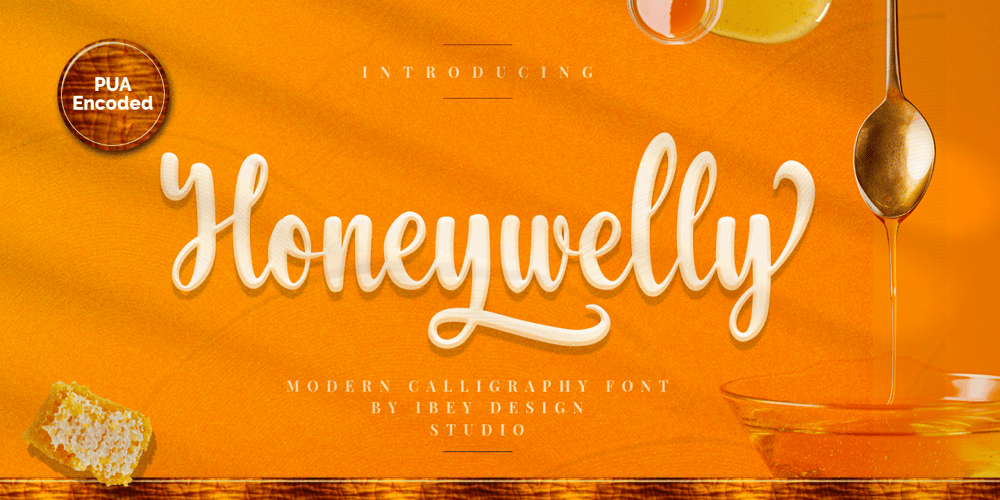
Honeywelly Modern Calligraphy Font Family was designed by Ikrar Bey Khubaib and published by IbeyDesign. Honeywelly Modern Calligraphy contains 1 styles and family package options. Honeywelly Modern Calligraphy Font is a beautiful light handwritten font with a unique feel and a stunning impact. It will add a luxury spark to any design project that you wish to create.